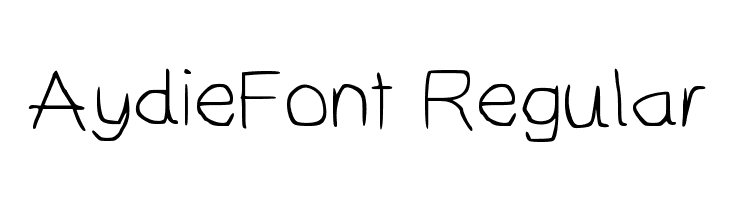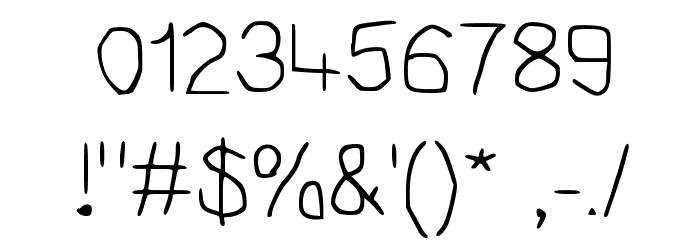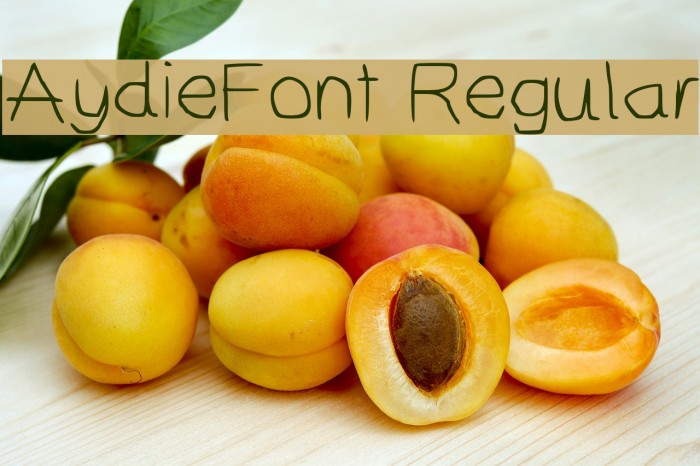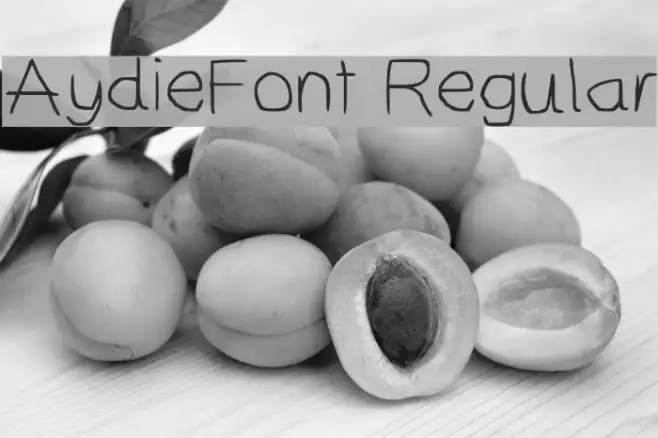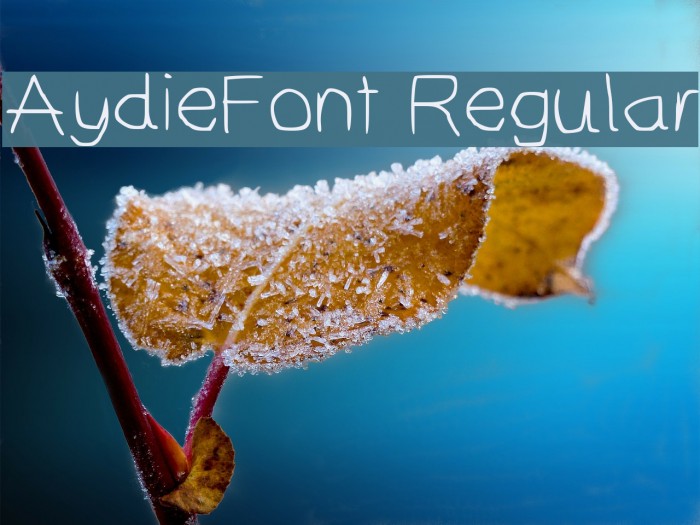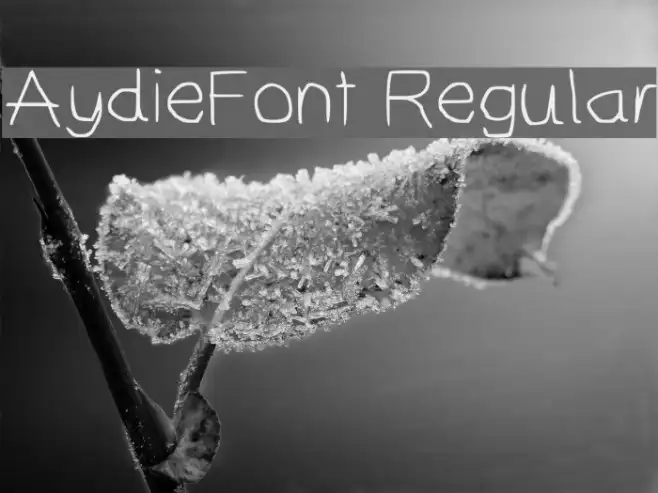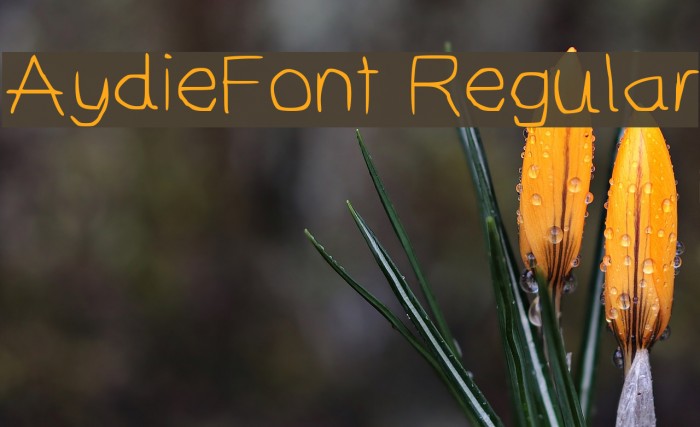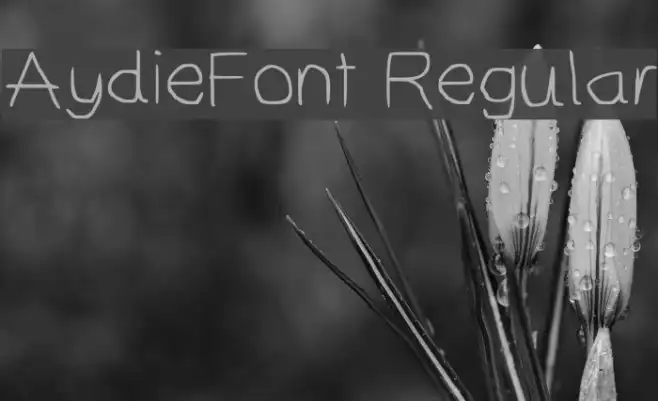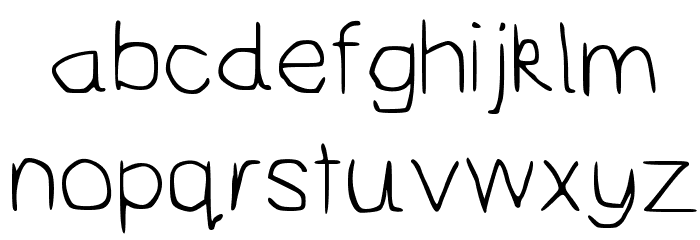
AydieFont Regular Font
This font features a playful and casual handwritten style, characterized by its irregular and slightly uneven strokes that mimic the natural flow of handwriting. The letters are distinct and easy to read, with a whimsical touch that adds personality and charm. The uppercase letters maintain a consistent height, while the lowercase letters vary slightly, enhancing the organic feel. The numerals and special characters are crafted with the same playful aesthetic, making them suitable for creative and informal designs. Overall, this font exudes a friendly and approachable vibe, perfect for projects that require a personal touch.
A playful handwritten font with a casual, whimsical style.
• Font: AydieFont Regular
by AydenC
• Proposed Projects: Ideal for greeting cards, children's books, personal blogs, and creative branding projects.
• Overall Style: Casual, Playful
• Use Case: Headlines, Informal text, Creative projects